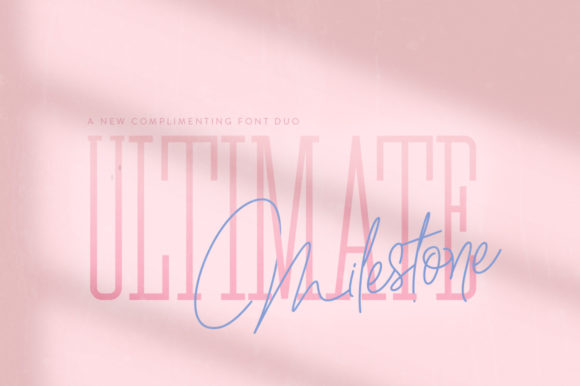
Ultimate Milestone Font: The Perfect Duo for Your Design Needs
In the world of typography, fonts play a crucial role in conveying messages, evoking emotions, and creating a lasting impression. For designers, writers, and artists, finding the right font can be a daunting task. However, what if you had access to not one, but two stunning fonts that could elevate your work to new heights? Welcome to the Ultimate Milestone Font, a game-changing duo that is about to revolutionize your design experience.
What is Ultimate Milestone Font?
Ultimate Milestone Font is a unique bundle that combines two gorgeous fonts into one must-have duo. This exceptional pairing is designed to cater to a wide range of design needs, from branding and advertising to publishing and digital media. The fonts are carefully crafted to work in harmony, allowing you to create stunning visual content that captivates your audience.
Why Choose Ultimate Milestone Font?
So, what makes Ultimate Milestone Font stand out from the rest? Here are just a few reasons why this font duo is a must-have for designers and creatives:
- Versatility: The Ultimate Milestone Font duo offers an unparalleled level of versatility. Whether you’re working on a logo, brochure, website, or social media post, these fonts can adapt to any design style or theme.
- Unique Style: The fonts in this duo boast a distinctive style that will set your work apart from the crowd. With their elegant lines, beautiful curves, and precise craftsmanship, you’ll be able to create designs that exude sophistication and class.
- Easy to Read: Both fonts in the Ultimate Milestone Font duo are optimized for readability, ensuring that your message gets across clearly and effectively. Whether you’re working with body text or headings, these fonts will make your content shine.
- Multi-Purpose: The Ultimate Milestone Font duo is suitable for a wide range of applications, including print and digital media. Use them for projects such as business cards, brochures, posters, magazines, websites, and more.
The Perfect Pairing: What to Expect from the Ultimate Milestone Font Duo
The Ultimate Milestone Font duo consists of two complementary fonts that are designed to work together in perfect harmony. Here’s a sneak peek at what you can expect from this exceptional pairing:
- Font 1: The first font in the duo is a stunning serif font, characterized by its elegant lines, refined curves, and classic style. This font is perfect for body text, articles, and other written content.
- Font 2: The second font in the duo is a beautiful sans-serif font, marked by its clean lines, modern aesthetic, and exceptional legibility. This font is ideal for headings, titles, and other display text.
When used together, these fonts create a stunning visual contrast that will elevate your designs to new heights. The serif font provides a solid foundation for your content, while the sans-serif font adds a touch of modernity and sophistication.
Design Tips: Getting the Most out of Ultimate Milestone Font
Now that you have access to the Ultimate Milestone Font duo, here are some design tips to help you get the most out of these exceptional fonts:
- Mix and Match: Experiment with different font combinations to create a unique look that suits your brand or design style. Try pairing the serif font with the sans-serif font for a striking contrast.
- Play with Sizes: Use different font sizes to create visual hierarchy and emphasize important information. This will help guide the reader’s eye through your content.
- Add Texture and Patterns: Add texture and patterns to your design to create depth and interest. This will help the Ultimate Milestone Fonts stand out even more.
- Experiment with Colors: Don’t be afraid to experiment with different colors to add personality and style to your design. The Ultimate Milestone Fonts look stunning in a wide range of colors.
What Designers Say About Ultimate Milestone Font
But don’t just take our word for it! Here’s what some designers and creatives have to say about the Ultimate Milestone Font duo:
“I’ve been searching for the perfect font duo for my branding project, and the Ultimate Milestone Font exceeded my expectations. The fonts are stunning, and the pairing is pure magic!”
Emily R., Graphic Designer
“I was blown away by the versatility of the Ultimate Milestone Font duo. I’ve used them for everything from business cards to website headers, and they always look amazing.”
David K., Web Designer
Get Your Hands on Ultimate Milestone Font
Ready to fall in love with the Ultimate Milestone Font duo? Here’s what you need to know:
| Author | Salt and Pepper Fonts |
In conclusion, the Ultimate Milestone Font duo is a game-changing font pairing that is sure to revolutionize your design experience. With its exceptional style, versatility, and readability, this font duo is perfect for designers, writers, and artists looking to elevate their work to new heights. So why wait? Get your hands on the Ultimate Milestone Font duo today and discover a world of limitless design possibilities!